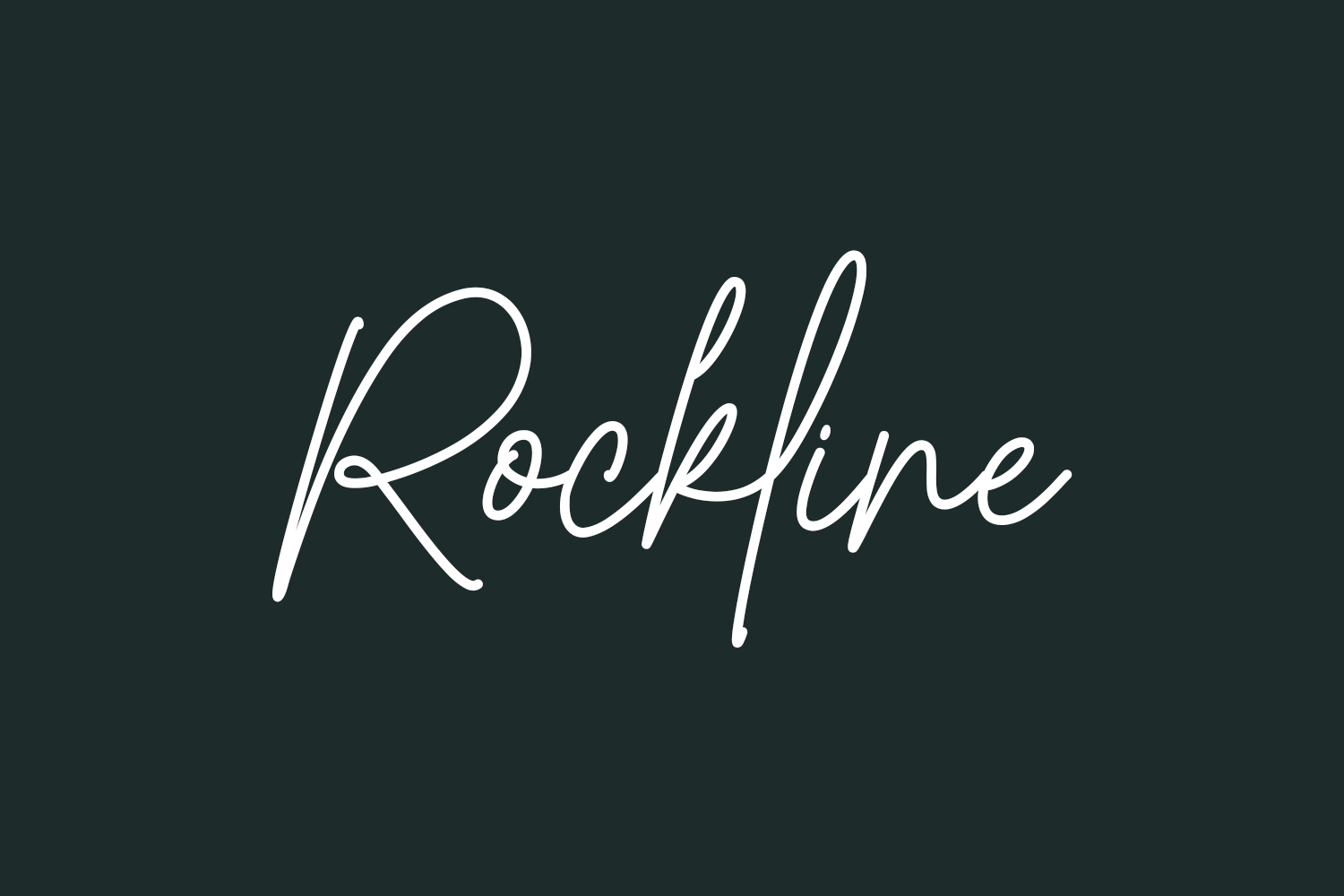
Discover Rockline Free Font, a slender handwritten font crafted with meticulous finesse and a gentle touch. This delicate typeface is perfect for projects that call for charming and romantic typography. Elevate your designs with the graceful allure of Rockline. Rockline Free Font was designed by Scratchones is a demo and free for personal use only. Please purchase the full version for commercial use.
Designed by Ramli Setiadi